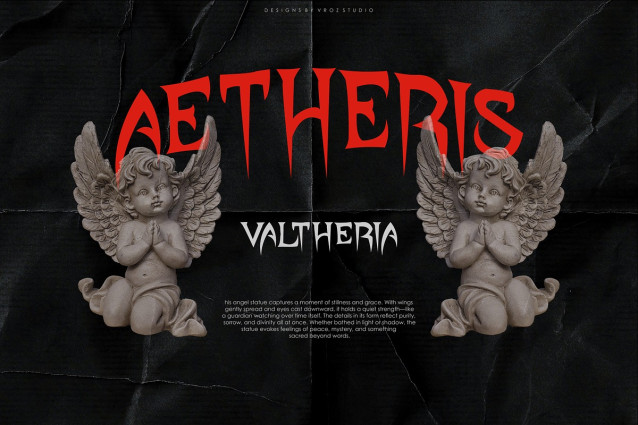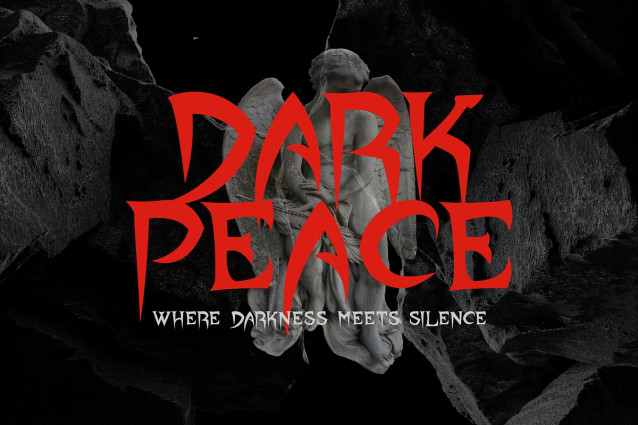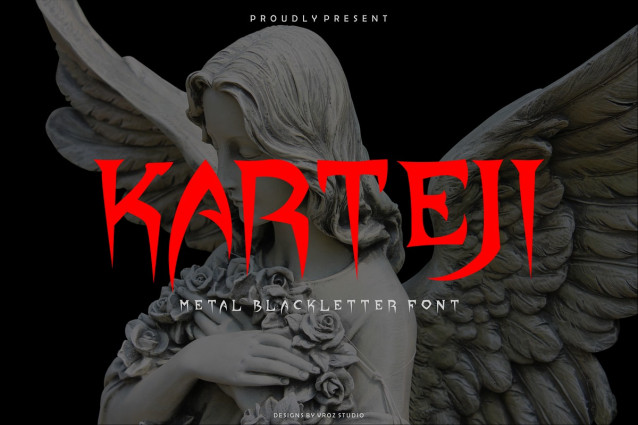
Karteji Metal Blackletter Font
Karteji Metal Blackletter Font is a bold and authoritative font designed to make a statement. Inspired by blackletter tradition and infused with a metallic edge, this typeface combines intricate historical roots with a raw, modern attitude. Its sharp lines, dramatic strokes, and vintage charm make it perfect for projects that need to stand out with strength and style.
Crafted with meticulous attention to detail, Karteji is ideal for band logos, album covers, streetwear, tattoos, merchandise, posters, and other creative works that demand a distinctive and powerful aesthetic.
Whether you’re designing for the underground scene, crafting heavy visuals, or just want a font that screams character, Karteji delivers both intensity and elegance in every glyph.